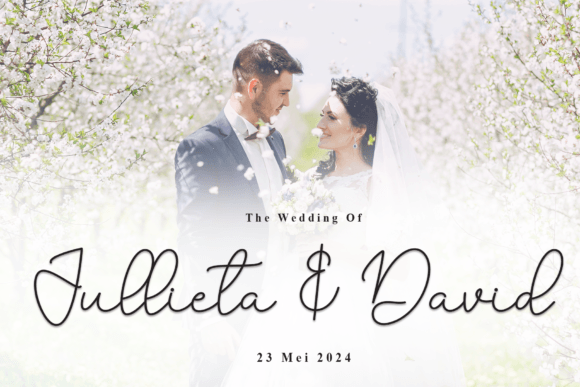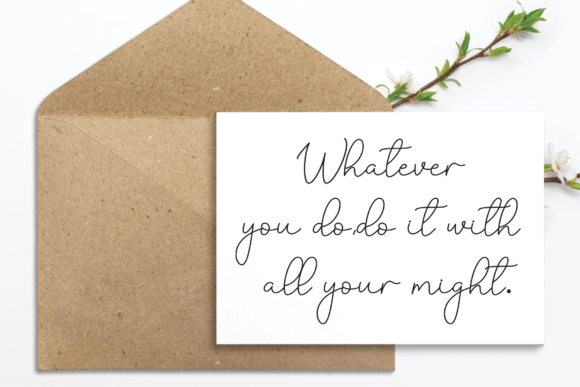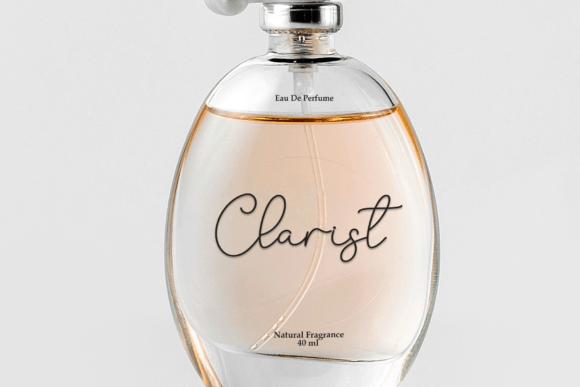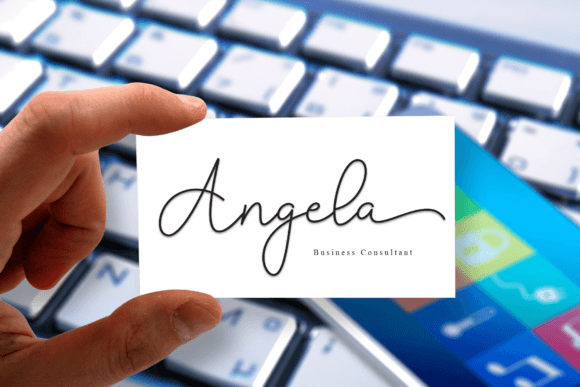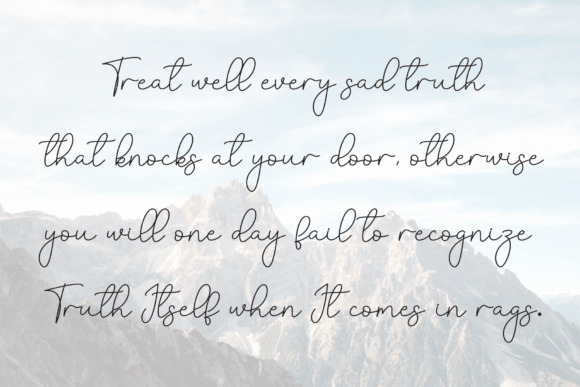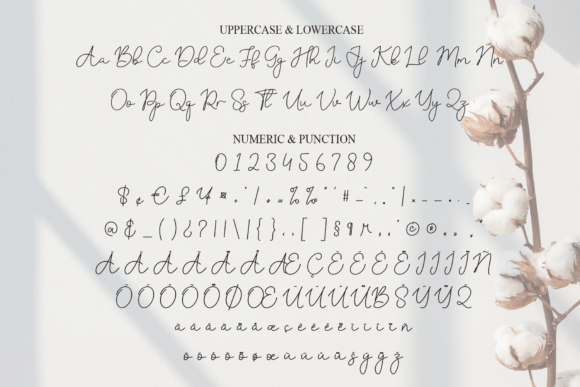
The Perfect Script for Your Next Design
Enter Adelya Font, a charming and playful handwritten font that brings a delightful touch to any project. With its whimsical curves and friendly character, Adelya Font is ideal for greeting cards, whimsical branding, and cozy invitations. Whether you’re designing a wedding invitation or a children’s book, this font adds a sweet, personal flair that sets your design apart.
For designers, Adelya Font is a valuable addition to their toolkit, offering endless possibilities for creative expression. Its versatility and charm make it a must-have for any project that requires a touch of personality and warmth.
Adelya Font Key Features
- Font Family: Adelya, Adelya Bold, Adelya Italic, Adelya Bold Italic
- Unique Characteristic: Adelya features a unique, elegant script style with a mix of calligraphic and modern elements, making it ideal for creative and professional designs.
Adelya Font Review
First off, I love the elegant and refined aesthetic of the Adelya Font. ✨ The clean lines, precise letterforms, and subtle flair on the terminals make it perfect for creating a sophisticated and modern look. It’s ideal for branding, advertising, and editorial content where a touch of luxury is desired. ✨ The font’s versatility also shines in digital applications, as it scales well and remains legible even at small sizes. ✨
However, there are some limitations to consider. ⚠️ The Adelya Font’s narrow width may not be suitable for longer blocks of text, as it can lead to uneven word spacing and a somewhat crowded feel. ⚠️ Additionally, the font’s italic and bold styles may not be as refined as the regular weight, which could affect the overall consistency of your design. ⚠️
Overall, I find the Adelya Font to be a solid choice for designers seeking a high-end look. While it may have some limitations, its strengths make it a great addition to any typography collection. With careful application and consideration of its limitations, the Adelya Font can elevate your designs to new heights.
- Refined and elegant aesthetic
- Perfect for branding, advertising, and editorial content
- Scalable and legible in digital applications
- Narrow width may lead to uneven word spacing
- Italic and bold styles may not be as refined as regular weight
Getting the Most Out of Adelya Font
For best results, use Adelya Font with a clean and minimalistic design. Avoid using it with too many fonts or excessive graphics, as it may detract from the font’s elegance. Experiment with different font sizes and styles to create a visually appealing design.
Adelya Font is ideal for:
- Luxury brand logos and marketing materials
- High-end fashion and beauty branding
Great Vibes Font is more elegant and refined compared to Adelya Font, which has a more playful and whimsical feel. Great Vibes Font is ideal for projects that require a sophisticated and high-end look, while Adelya Font is better suited for projects that require a more playful and creative touch.